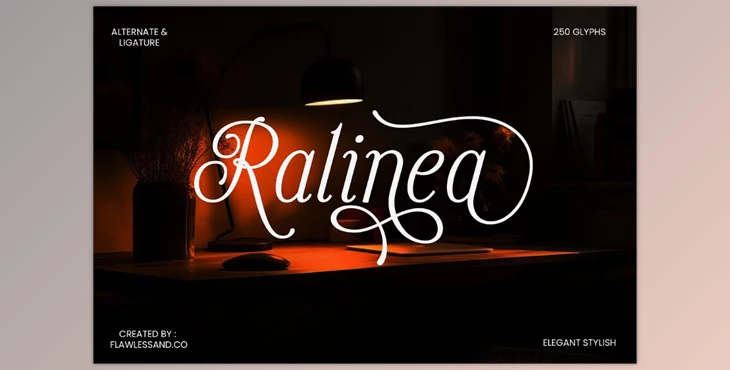
Ralinea - Script Font:
Described as timeless and sophisticated, Ralinea is a script font that balances elegance. With products to deliver with charm and finesse, Ralinea is best suited for wedding invitations, blog or social media branding, and even packaging. As the name itself implies, infusing crafted logos and headlines with Ralinea adds a new depth to elegance-styled projects.